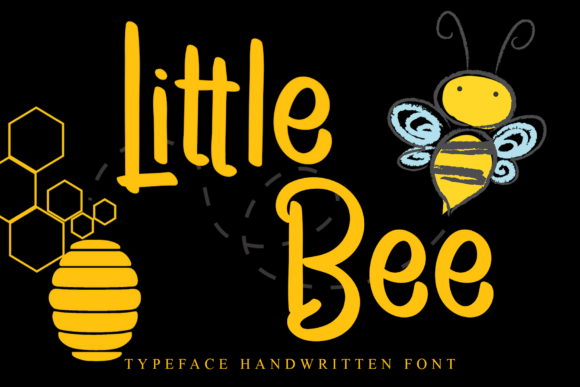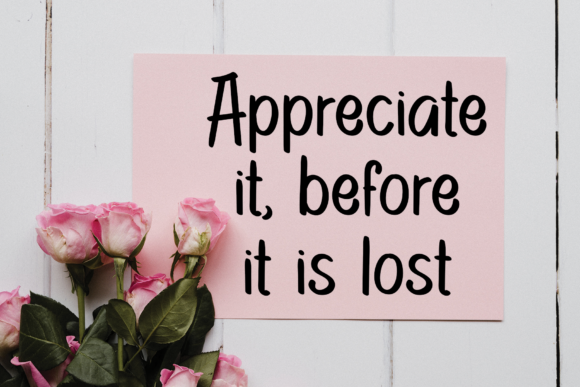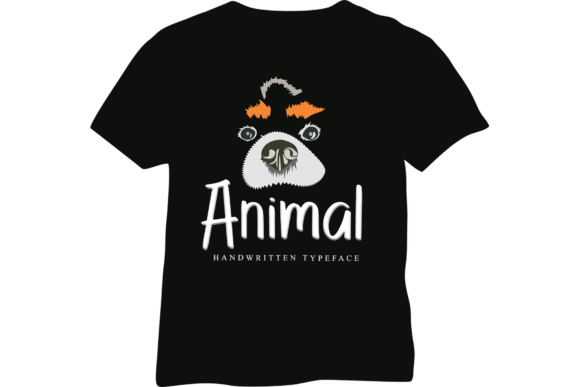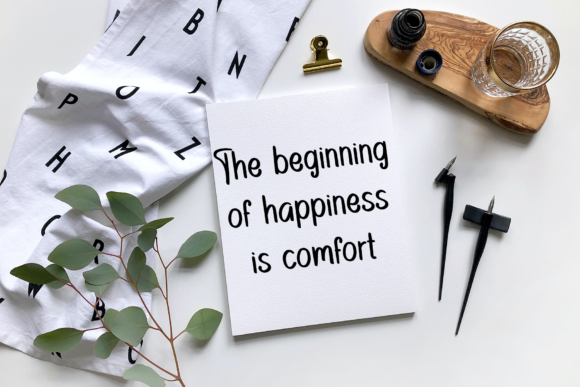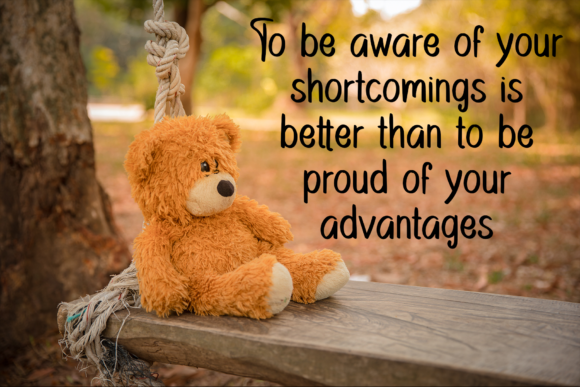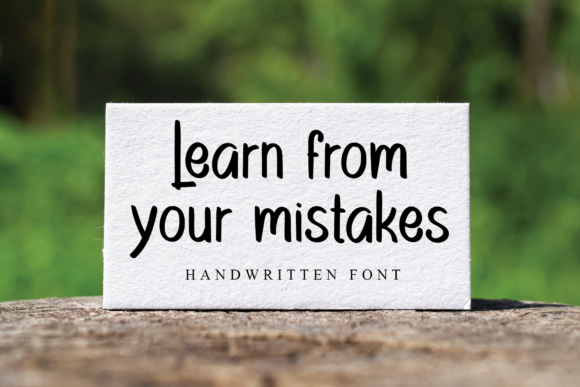
Little Bee Font
About Little Bee Font
Little Bee is a unique and elegant script font. This font is the ideal font for adding an adventurous and authentic feel to your next design idea!